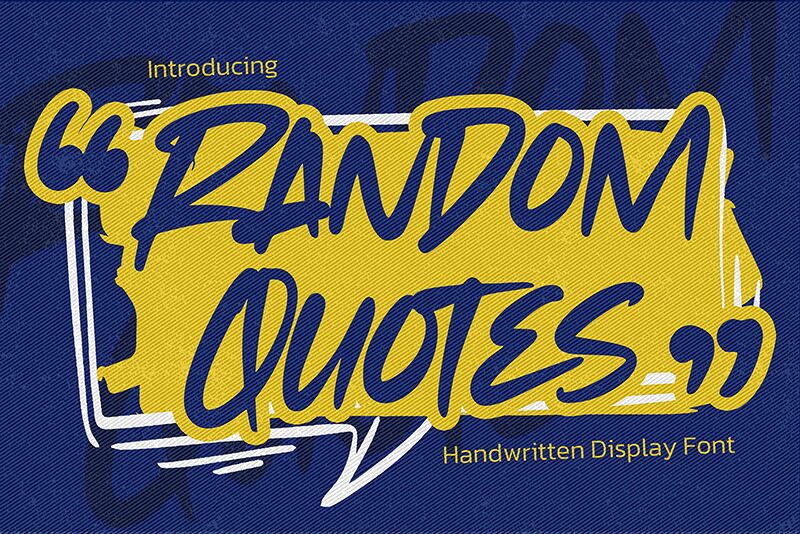
Random quotes
Random Quotes by Gassstype emerges as a modern handwritten display font, encapsulating the spontaneity and fluidity of quick, casual pen strokes. This font boasts a textured finish that adds an authentic touch to its dynamic movement, making it an ideal choice for designers seeking to inject personality and a natural look into their creative endeavors.
Perfectly suited for an array of projects—be it the charm of labels, the boldness of posters, or the warmth in greeting cards—Random Quotes excels wherever there's a need for design that looks contemporary yet playful. Its suitability extends to branding, packaging, websites, photography overlays, and much more. Embrace the unique flair of Random Quotes and let your designs stand out with its distinctive handwritten style that promises to make your work both modern and fun.